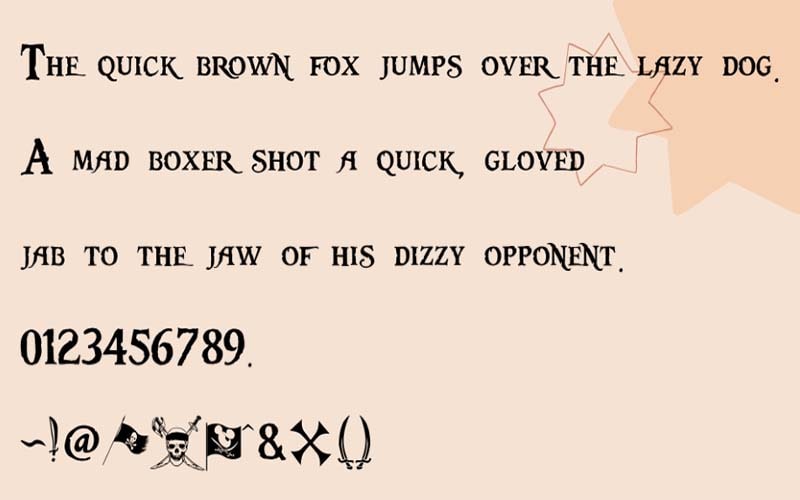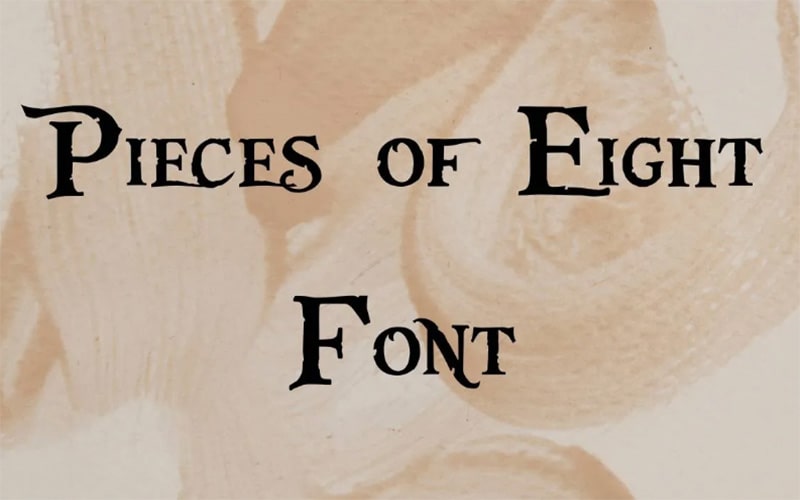
Pieces Of Eight Font is a free decorative and gothic typeface family. It was created by Mr. Steve Ferrera who is in charge of designing and releasing it for the first time.
The famous typeface has come in two unique styles. It has a beautiful and excellent look that attracts everyone. That’s why to be used the famous movie Pirates of the Caribbean in his logo.
We can say that this elegant structure font has a lot of power to give a special, unique, and fabulous look to every design in which Pieces Of Eight Font is used.
Further, it is the best choice for weird design and is used for all horror movies which makes it awesome. If you also have some related work then you are in the right place.